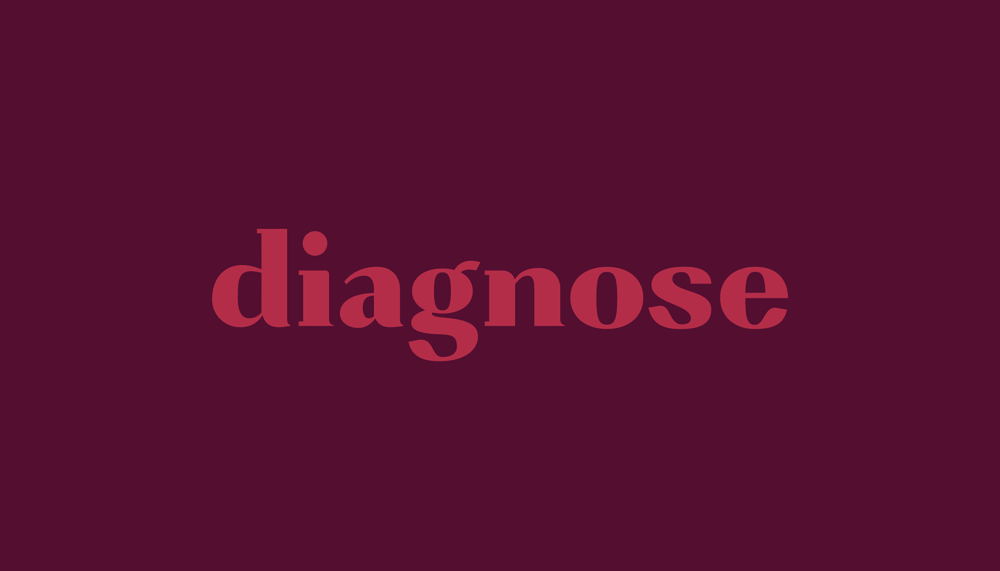
As someone who is very passionate about type design, I have followed this course intently. I have recently bought the Glyphs app so I have done my best to become familiar with using it.
I have spent a month designing many of the lowercase characters, but I thought I had to stop revising them because I am in dire need of critique. I love modern or didone typefaces which was the reason behind the aesthetic. I have no formal education of type design. I am a type enthusiast that has recently started graphic design school. Hopefully, that will pave the way for my dream.